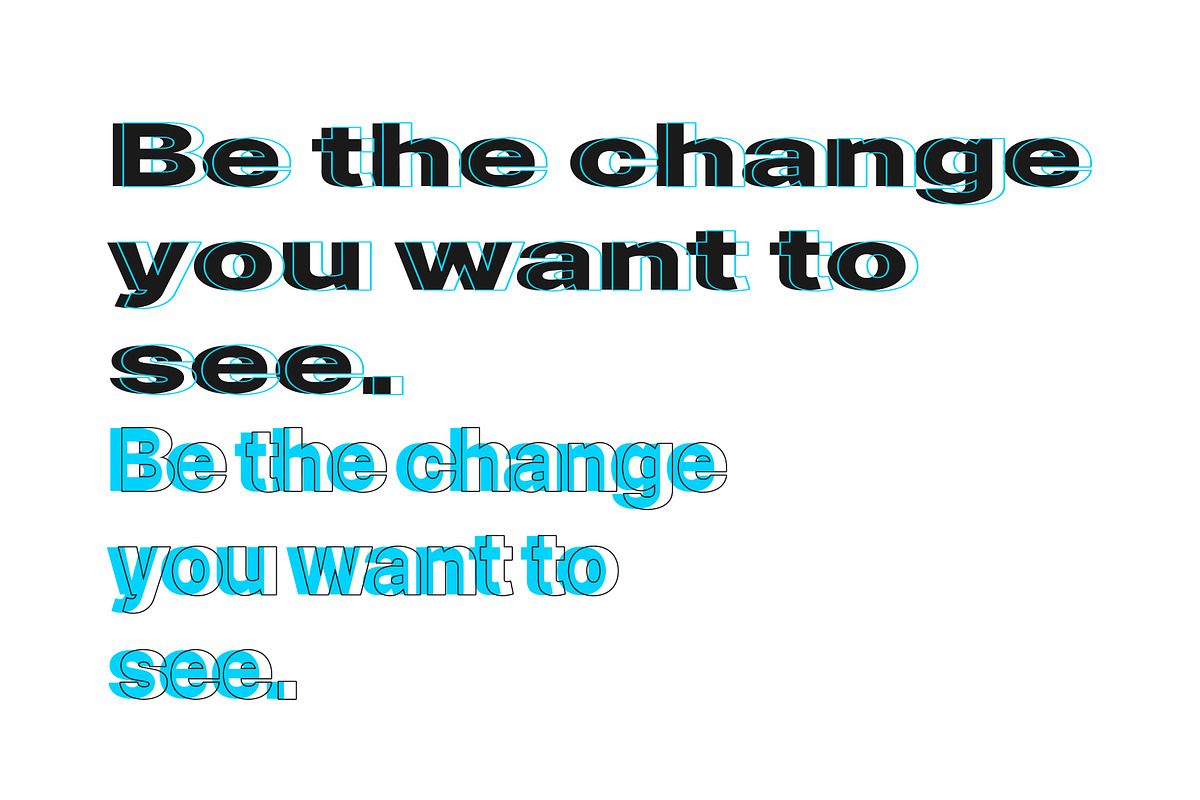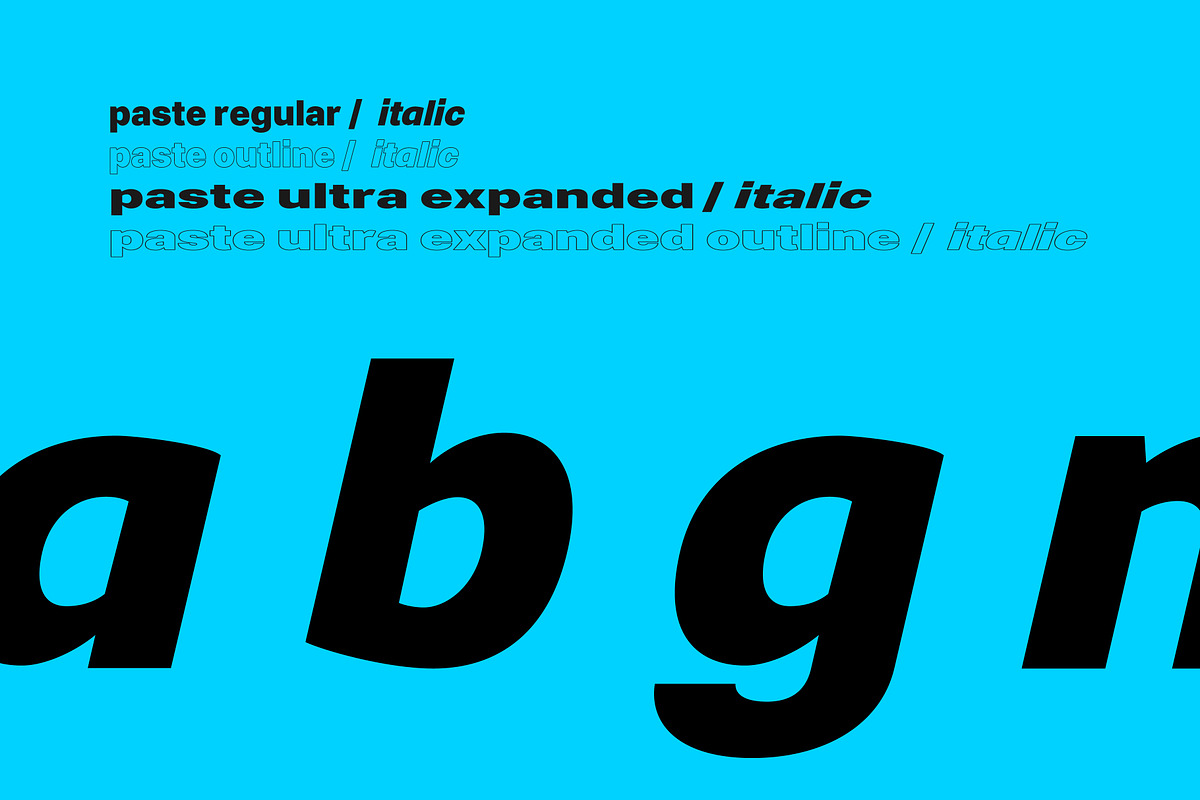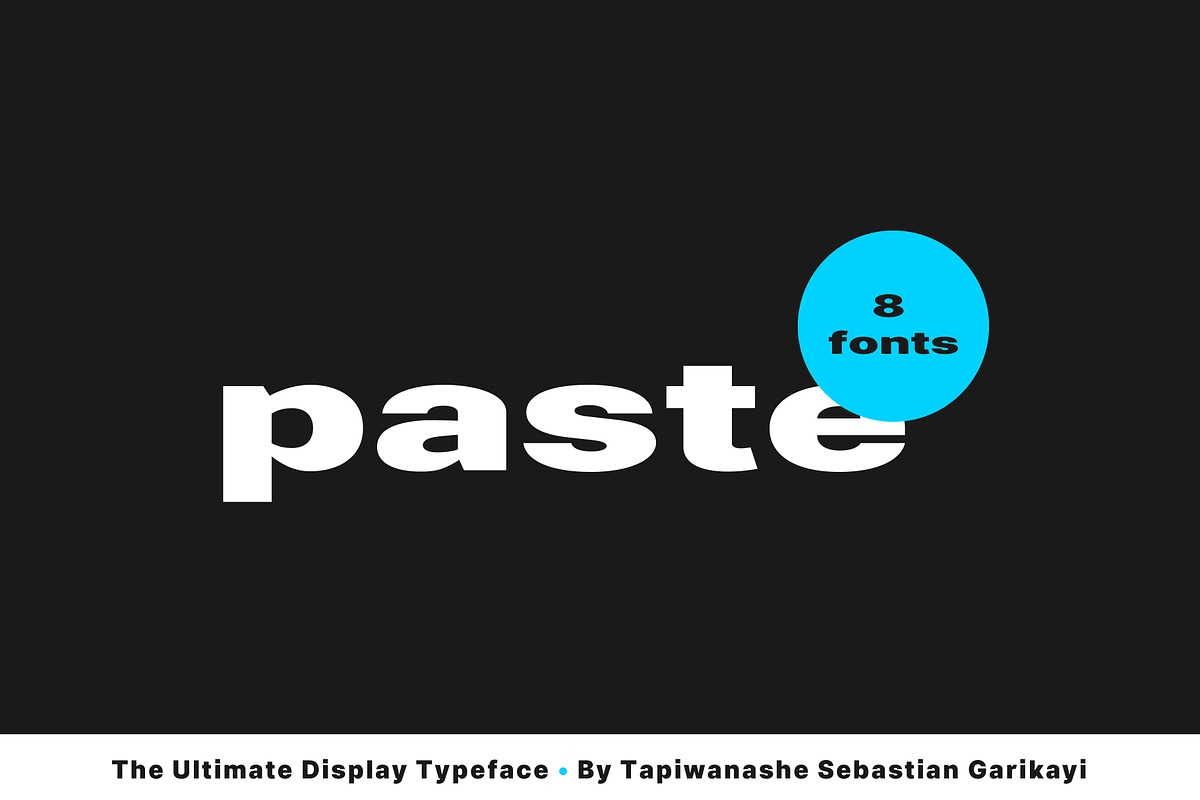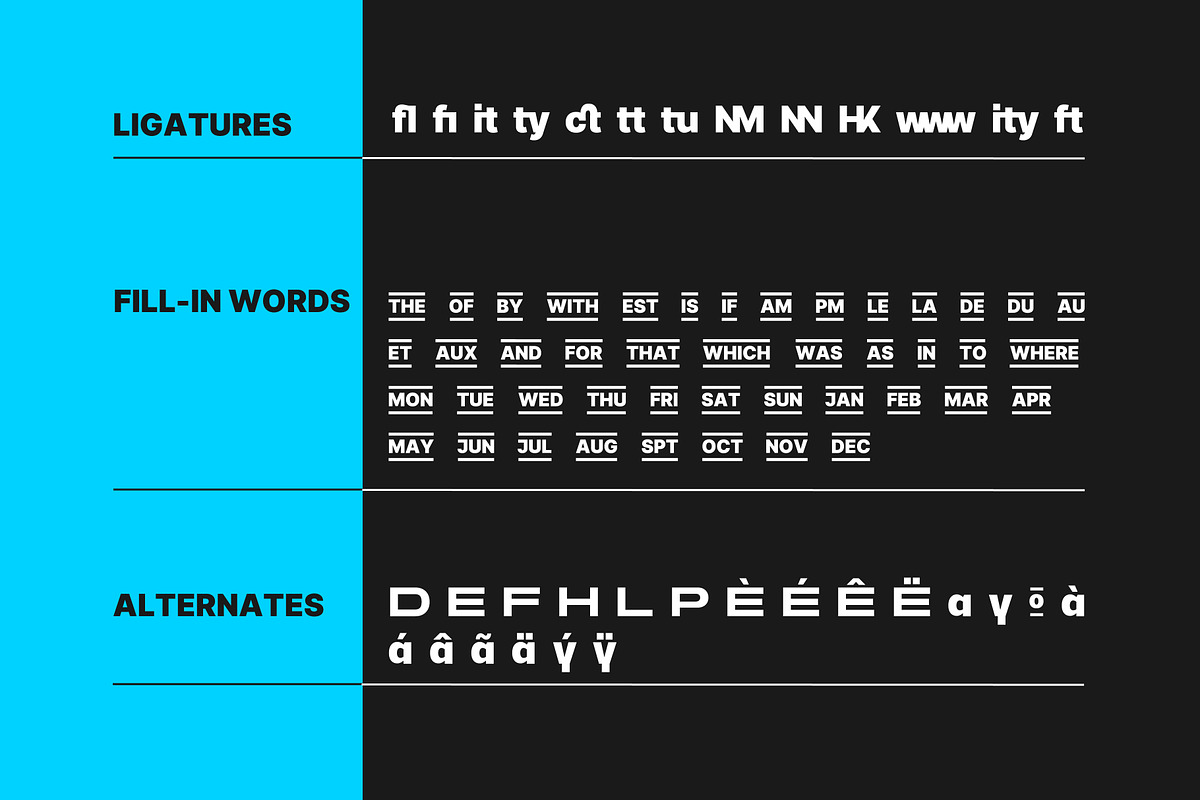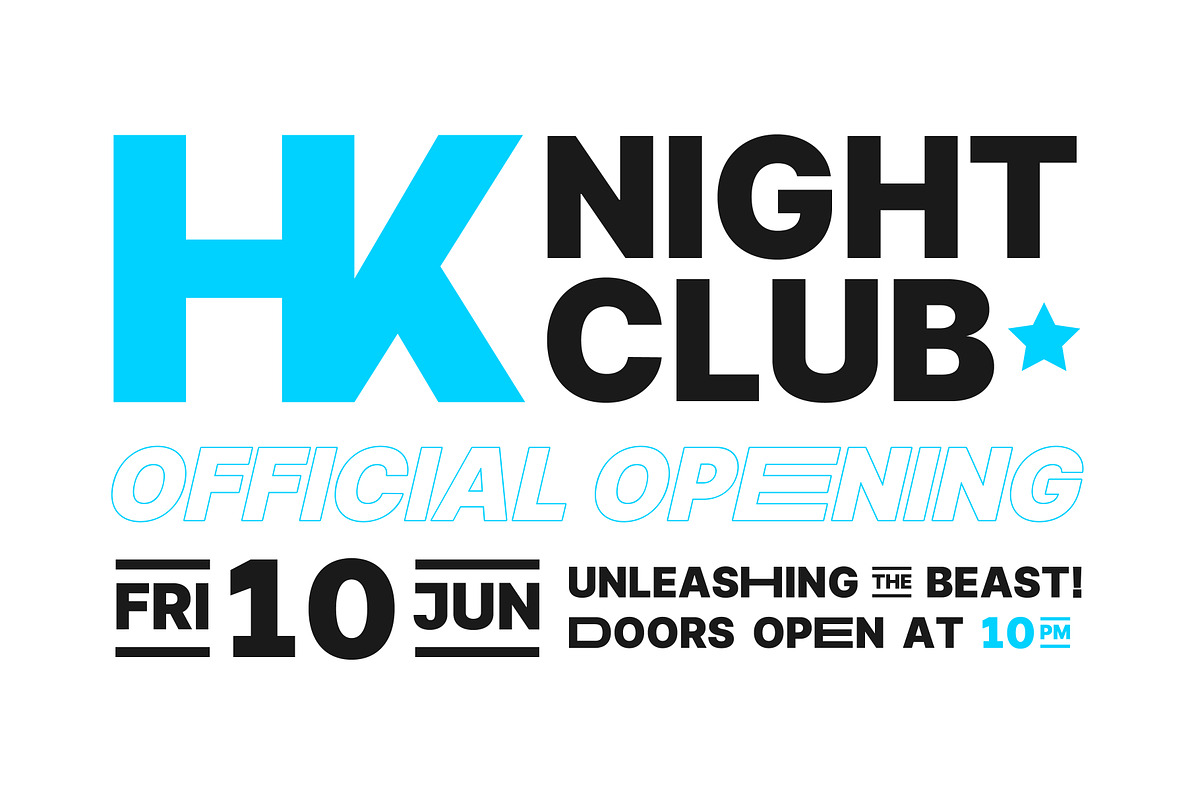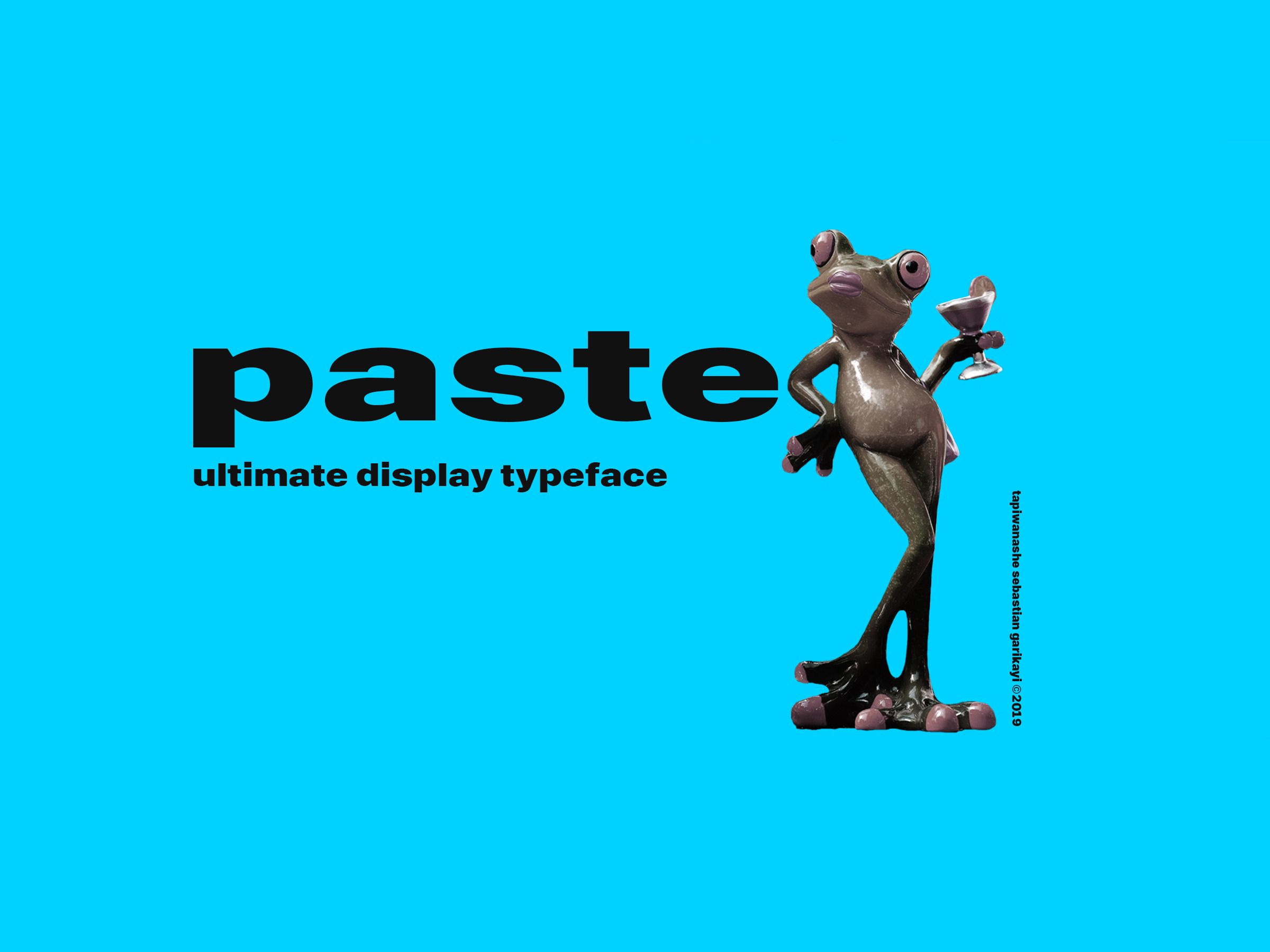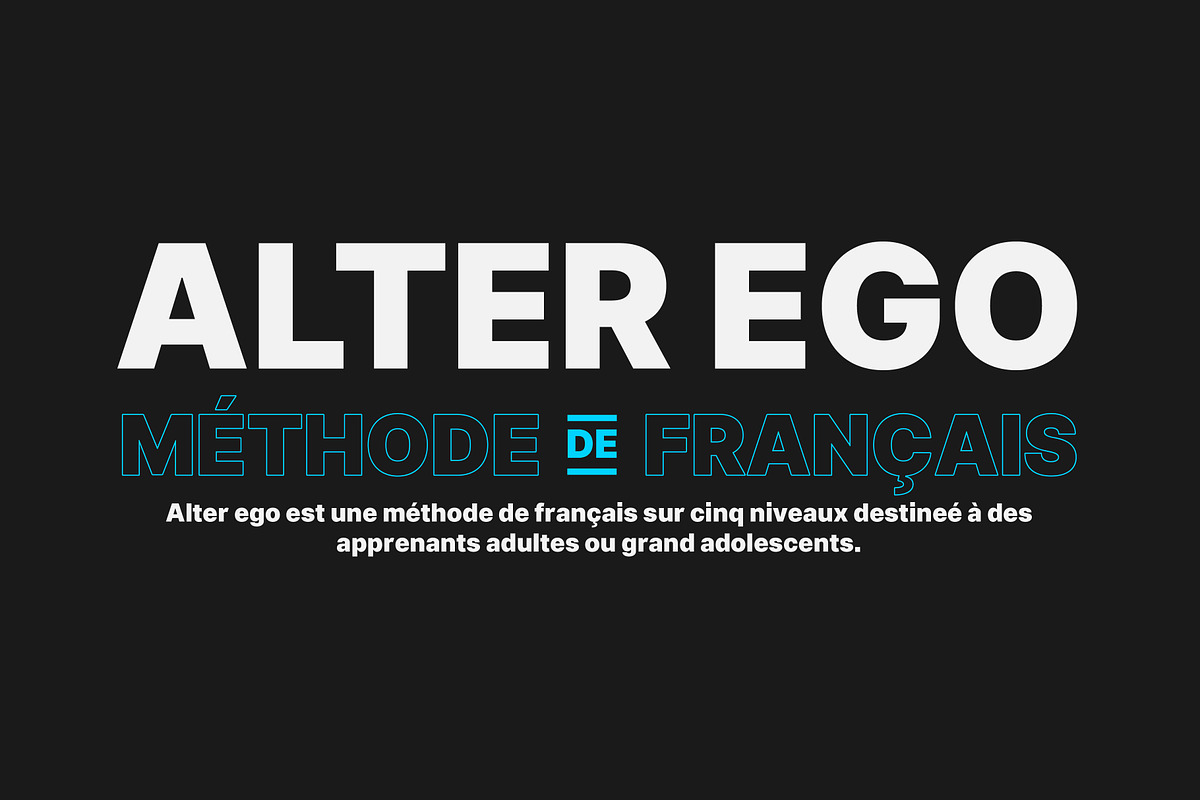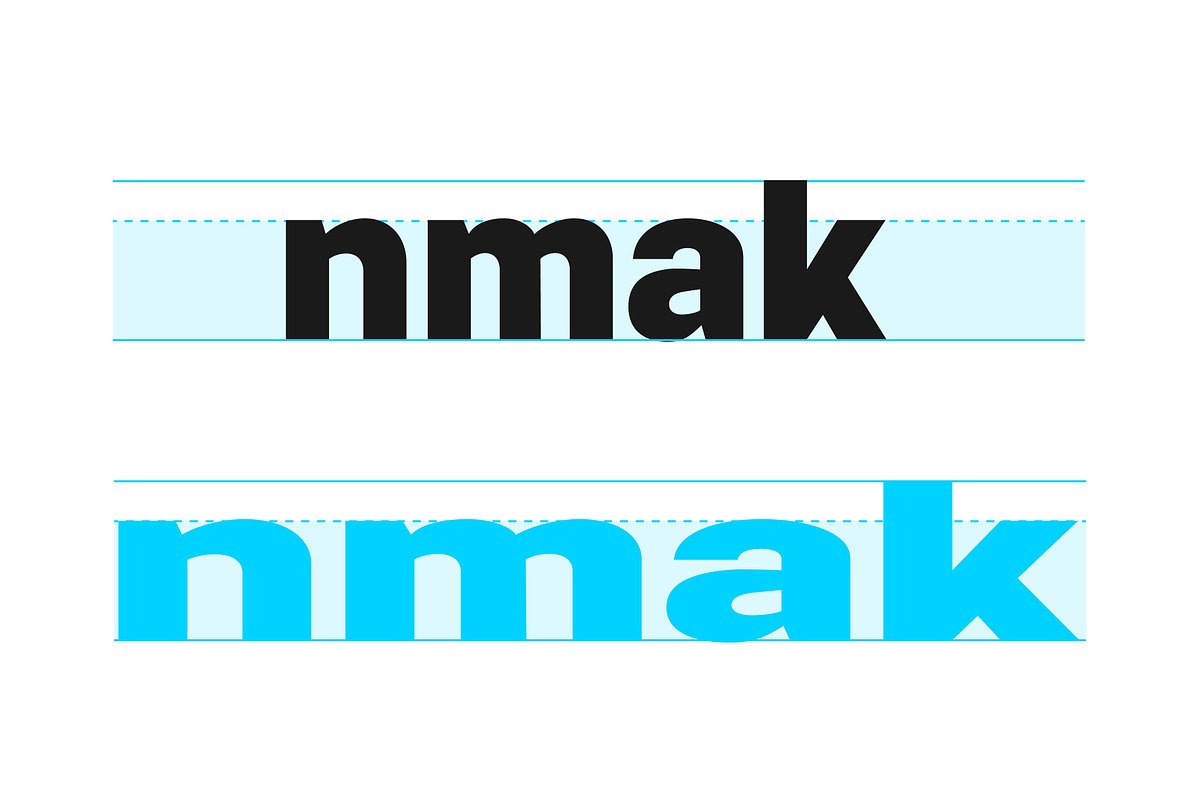
Paste Display Typeface
Paste typeface is a sans serif display typeface entirely designed for display purposes. It has special opentype features like Filler-words, that enable it to be used for large text while using minimal space. It comes at 2 widths, normal & ultra expanded further expanding it's versatility as a display typeface; perfect for headlines, posters, billboards and all other large text needs. Download and make something awesome!